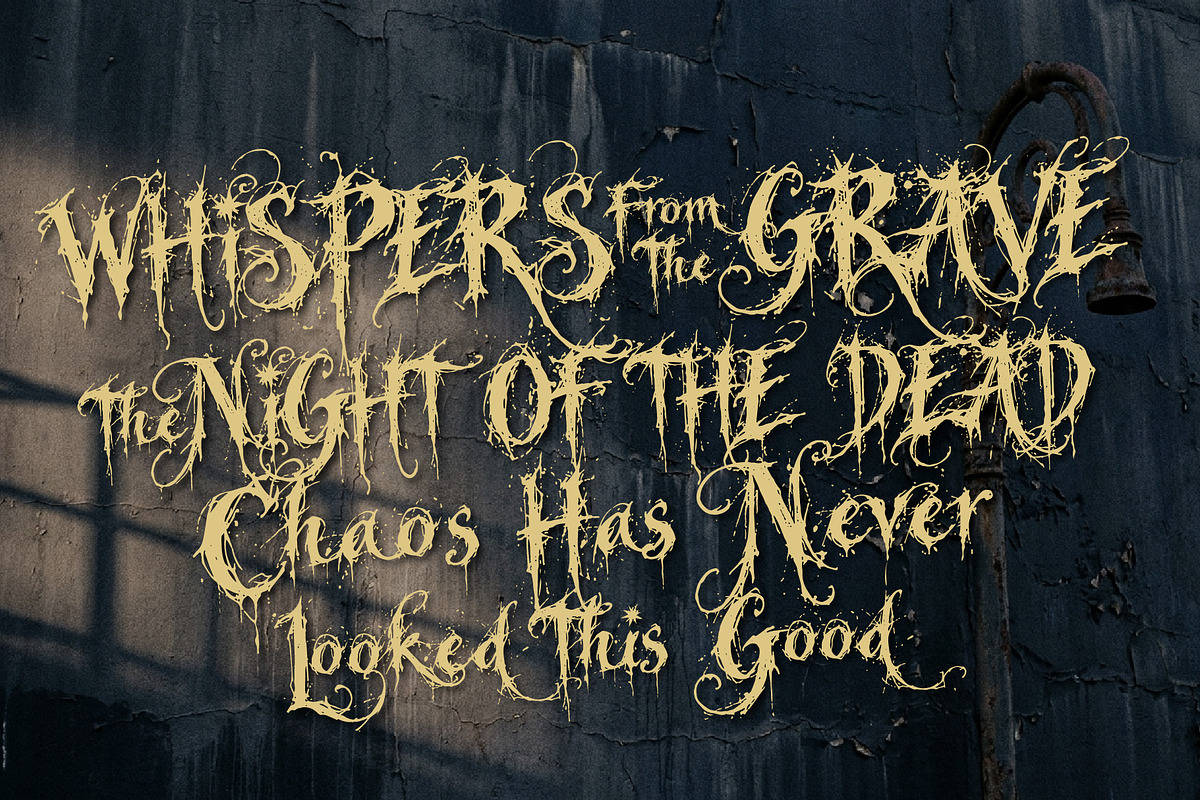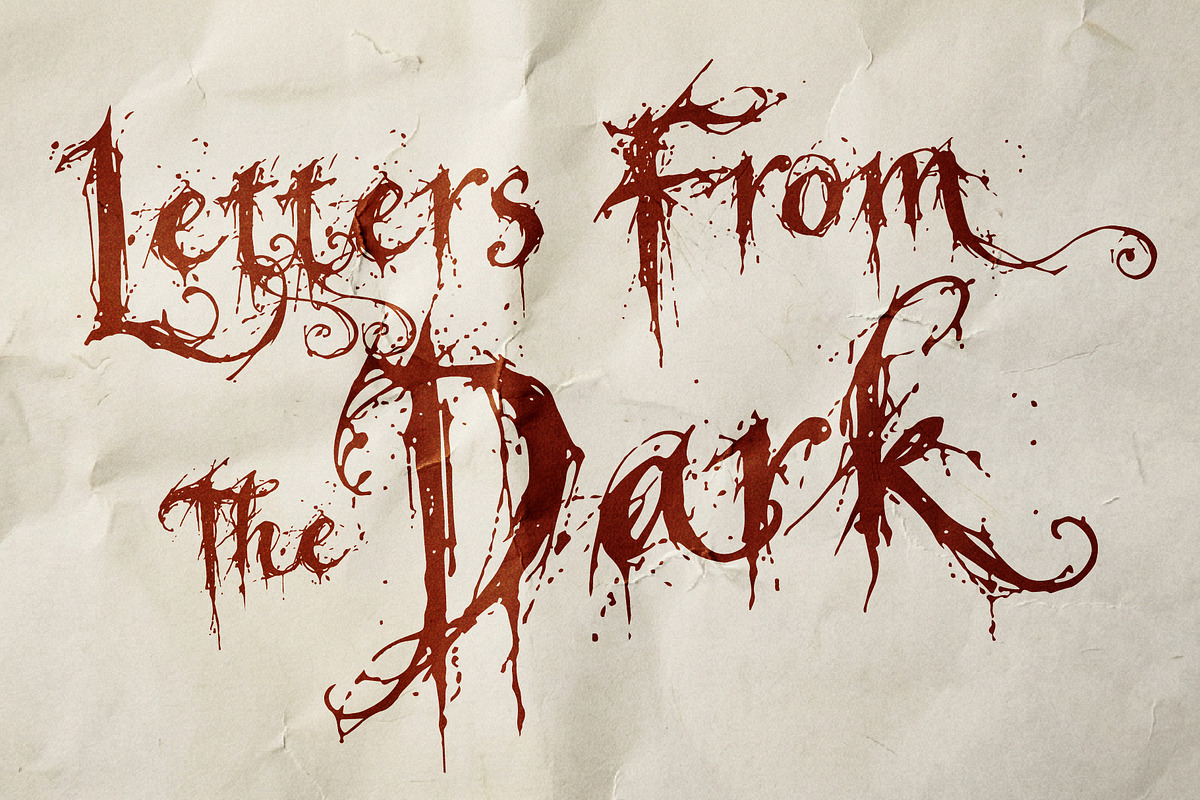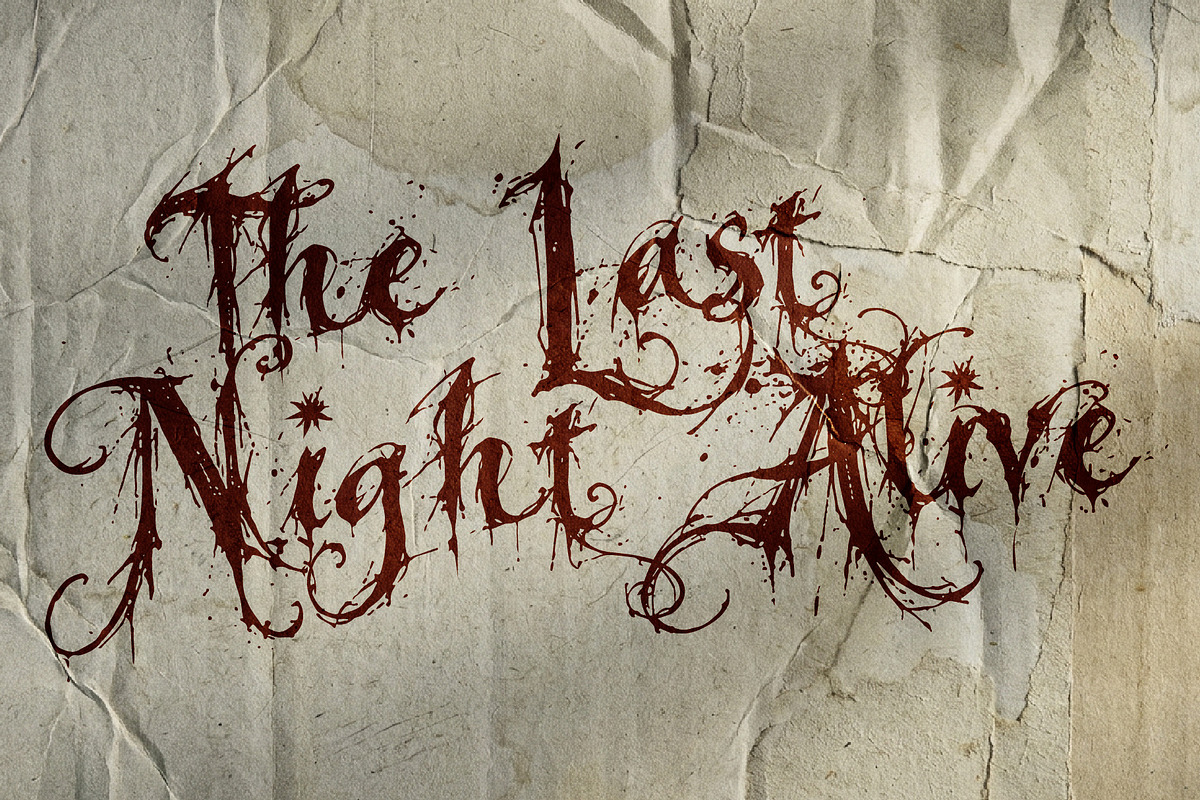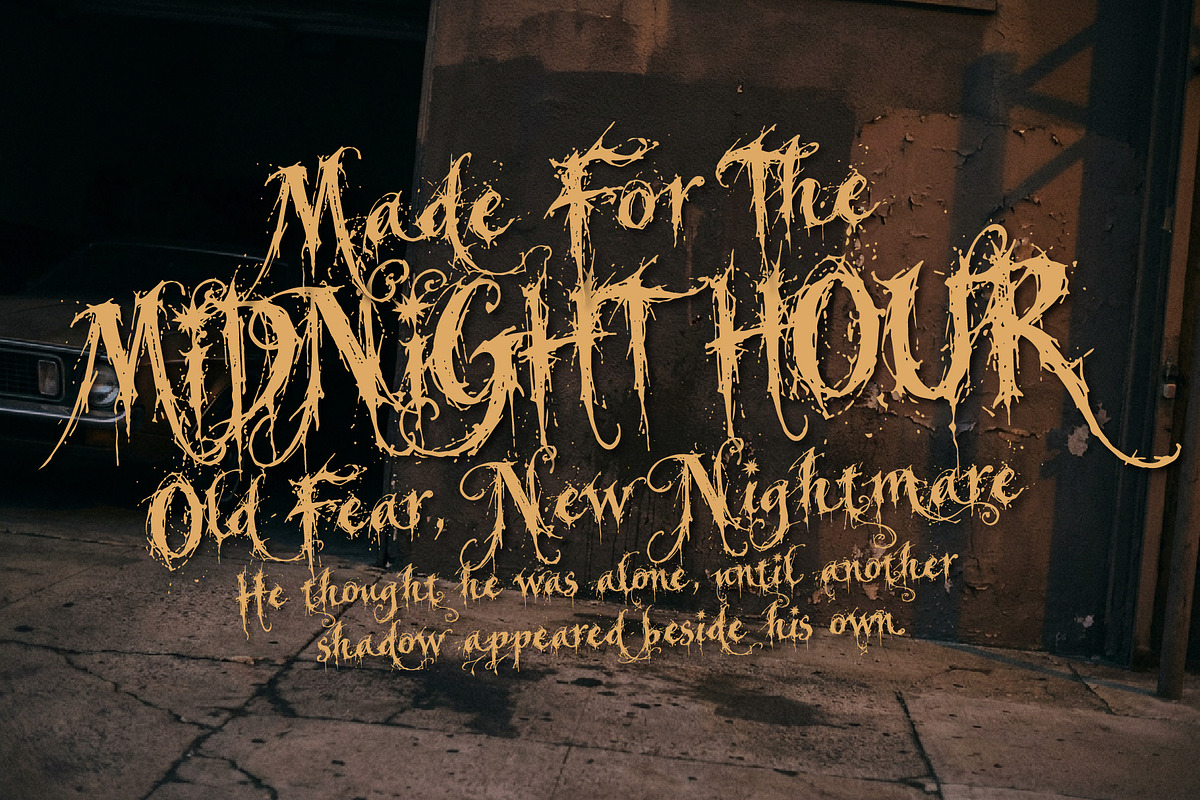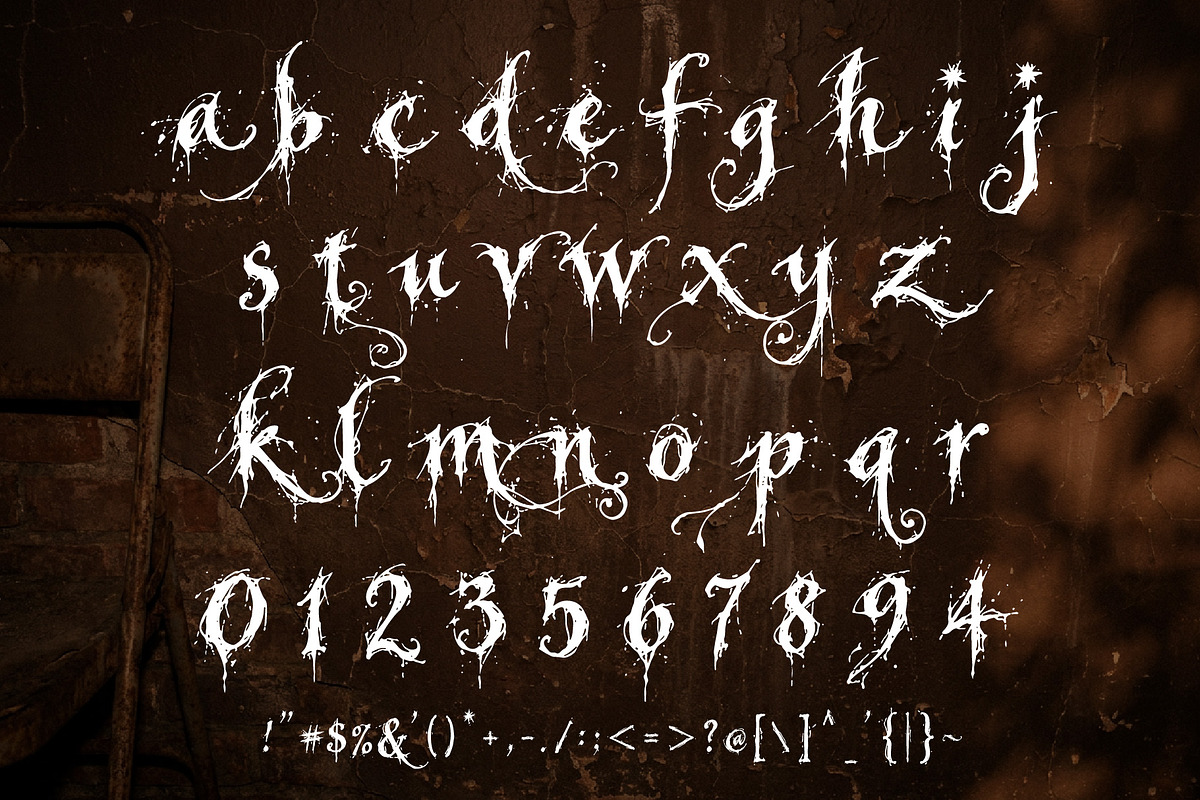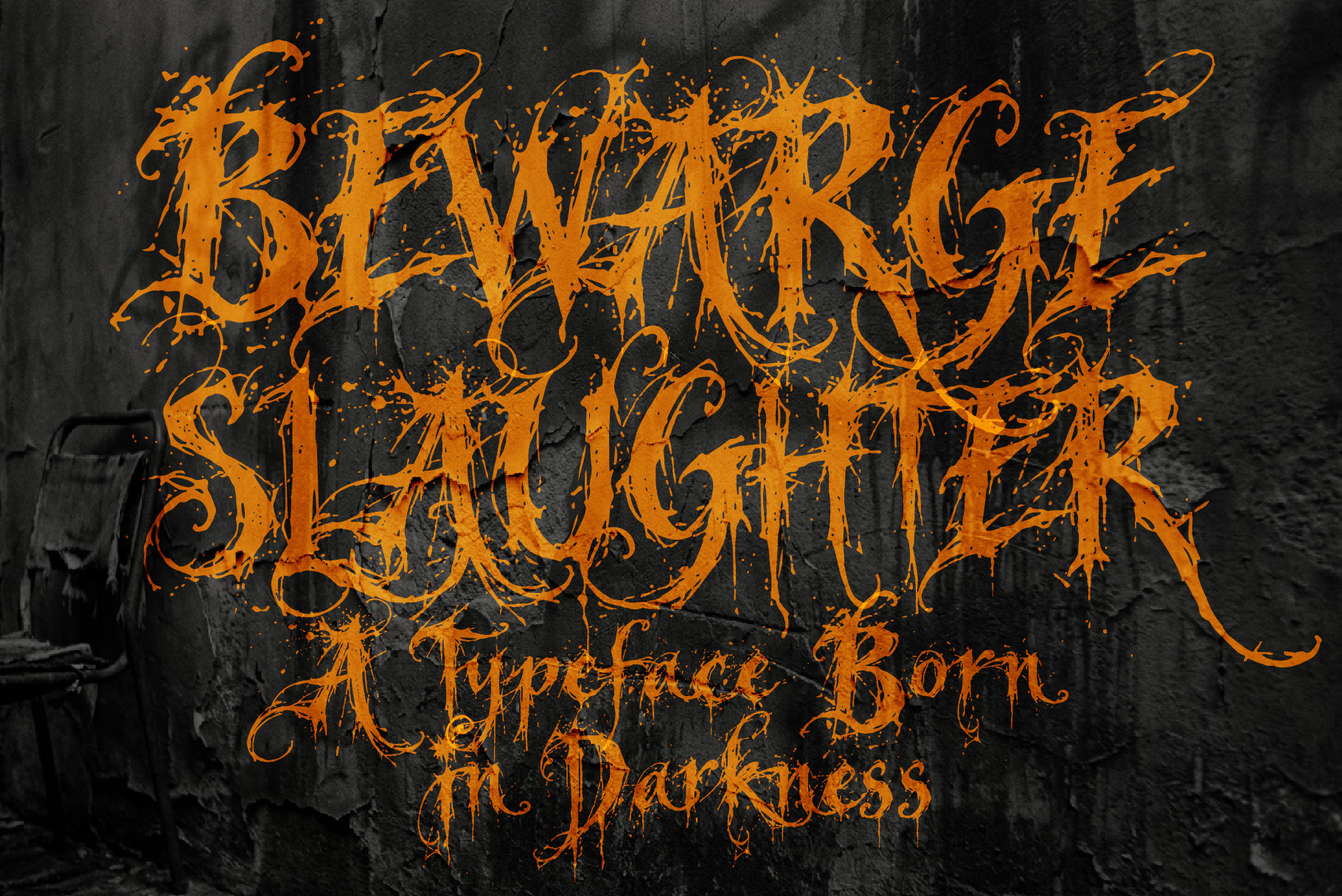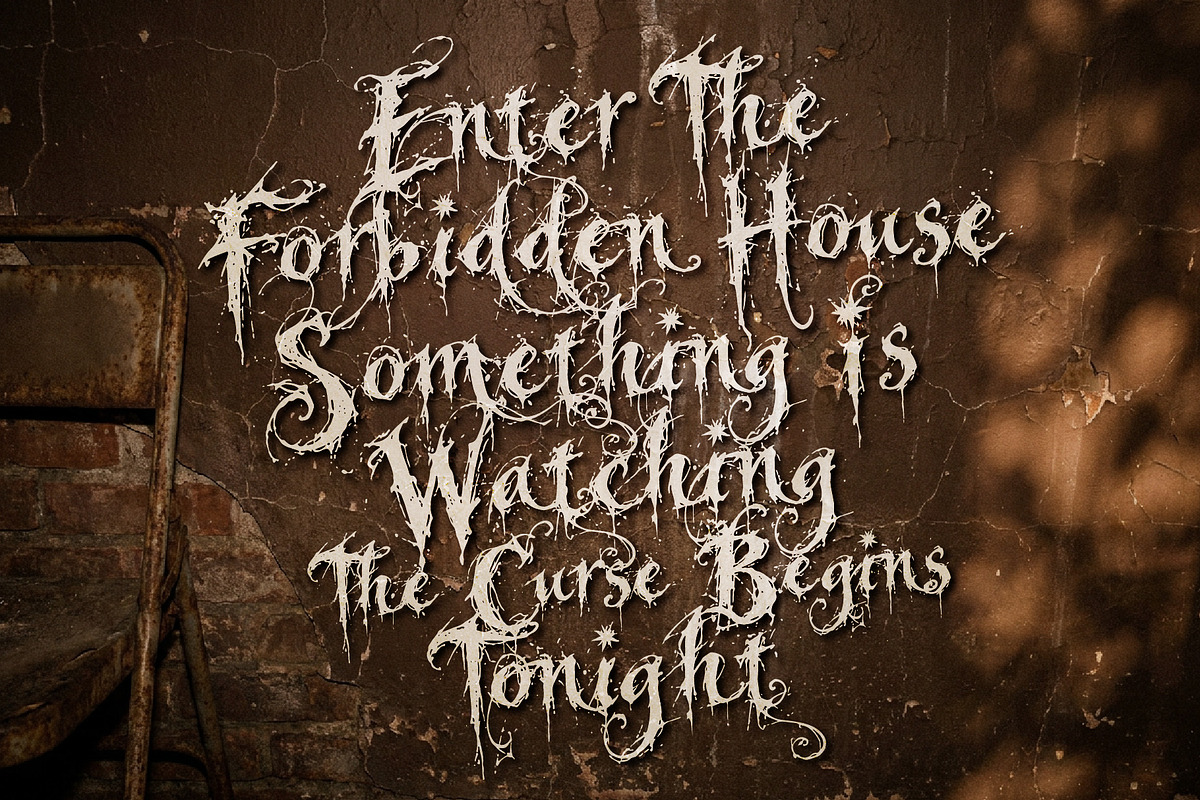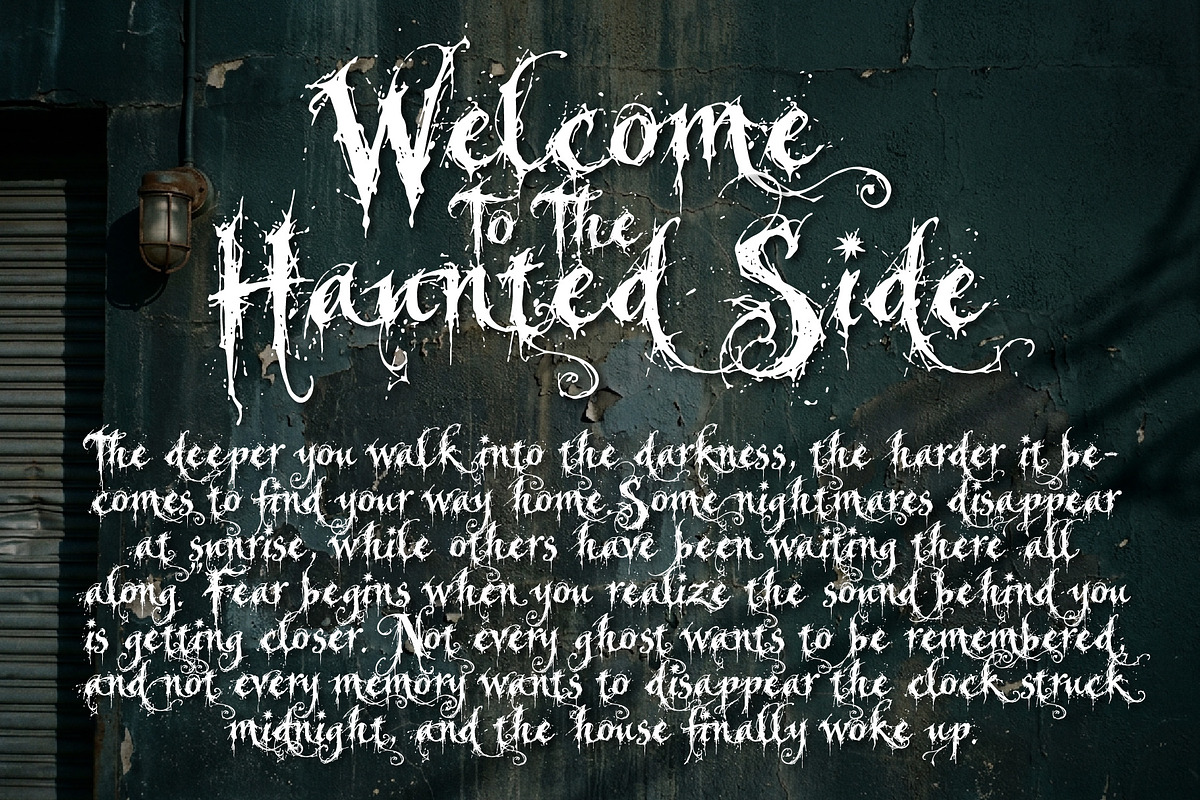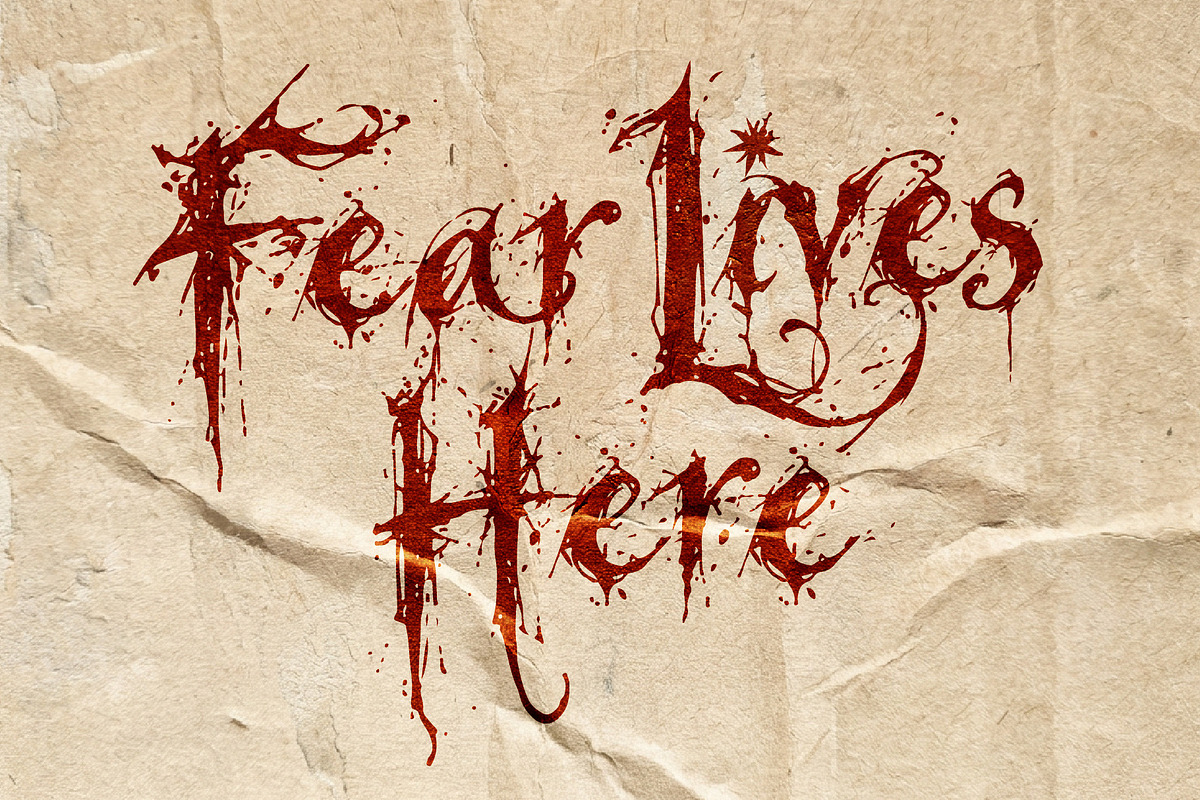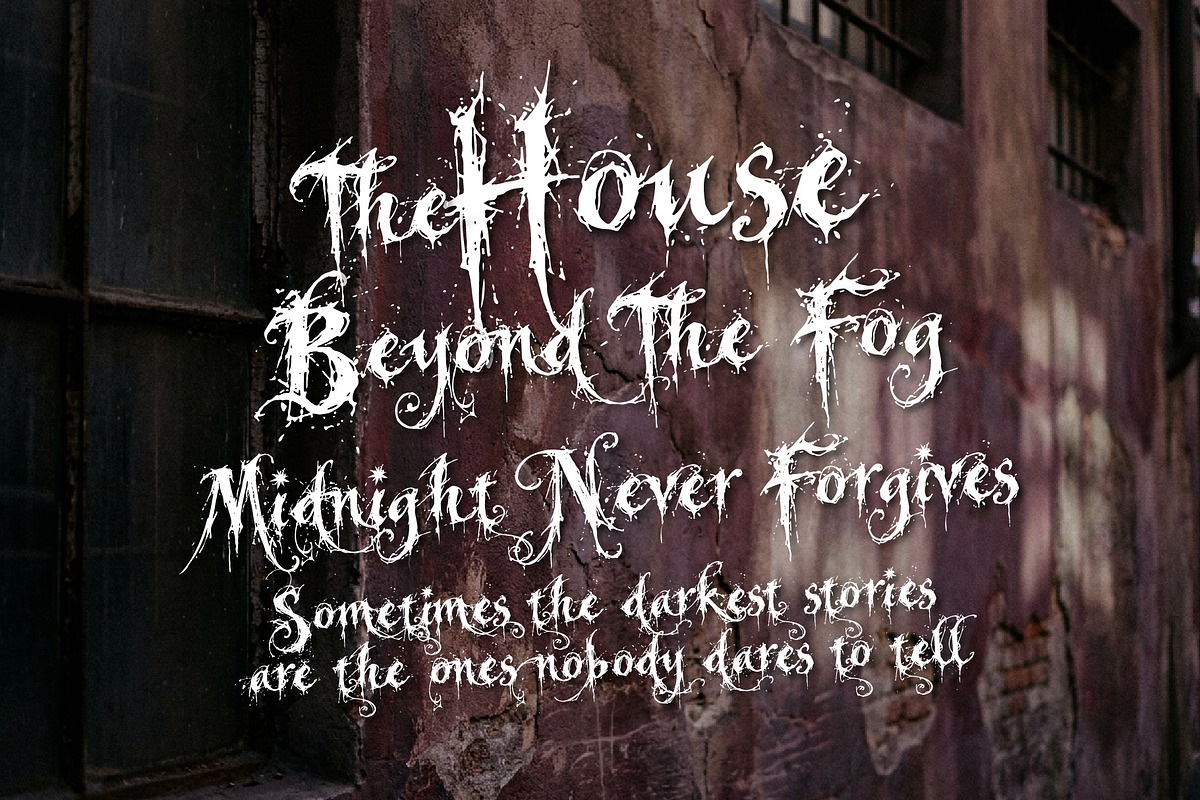
Bewarge Slaughter Horor Vintage Font
Bewarge Slaughter is a dark and chaotic grunge brush font with a classic vintage horror character. Rough textures, irregular strokes, dramatic swashes, and distressed details create a sinister lettering style that feels pulled straight from an old horror poster.
Its expressive brush forms bring a raw handmade quality while the vintage treatment adds an eerie, timeless atmosphere. Perfect for horror movie titles, Halloween artwork, haunted house graphics, thriller posters, dark merchandise, album covers, book covers, and creepy branding.
Use Bewarge Slaughter when your design needs something rough, unsettling, and dramatic a typeface made to turn ordinary words into mysterious, haunting, and unforgettable titles.